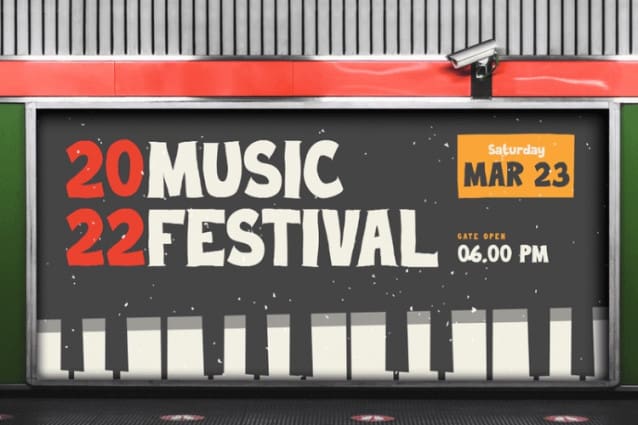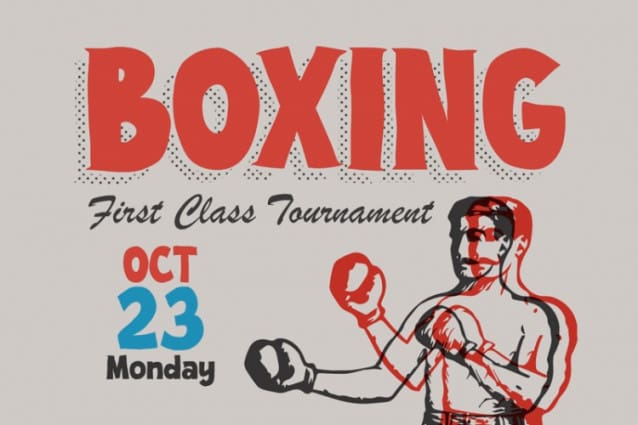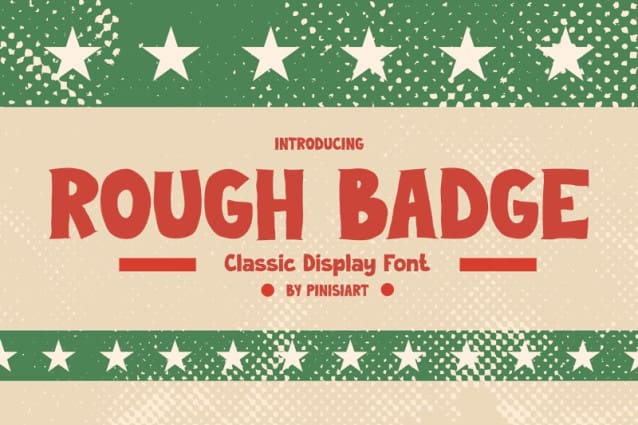
Rough Badge Font
Rough Badge Font a Classic Display Font that will make your content stand out. This Funny Font is perfect for those who want to add a touch of playfulness to their designs, while still maintaining a vintage feel. Whether you’re creating content for Instagram, movies, music, or YouTube, this Sans Serif Font will give your work a unique look that’s sure to catch people’s attention.
This Retro Fonts 70s inspired design is perfect for those who love a blast from the past. The font has a timeless feel that will transport your audience back in time. Additionally, ROUGH BADGE is a great choice for those who want to showcase a natural and organic style, with plenty of nature foliage and floral included in the font.
Whether you’re a professional graphic designer or just starting out, this Vintage Font is easy to use and can be adapted to a range of different projects. Plus, with its classic and timeless design, you can be sure that it will never go out of style. So why wait? Add ROUGH BADGE to your font collection today and give your designs the edge they deserve.